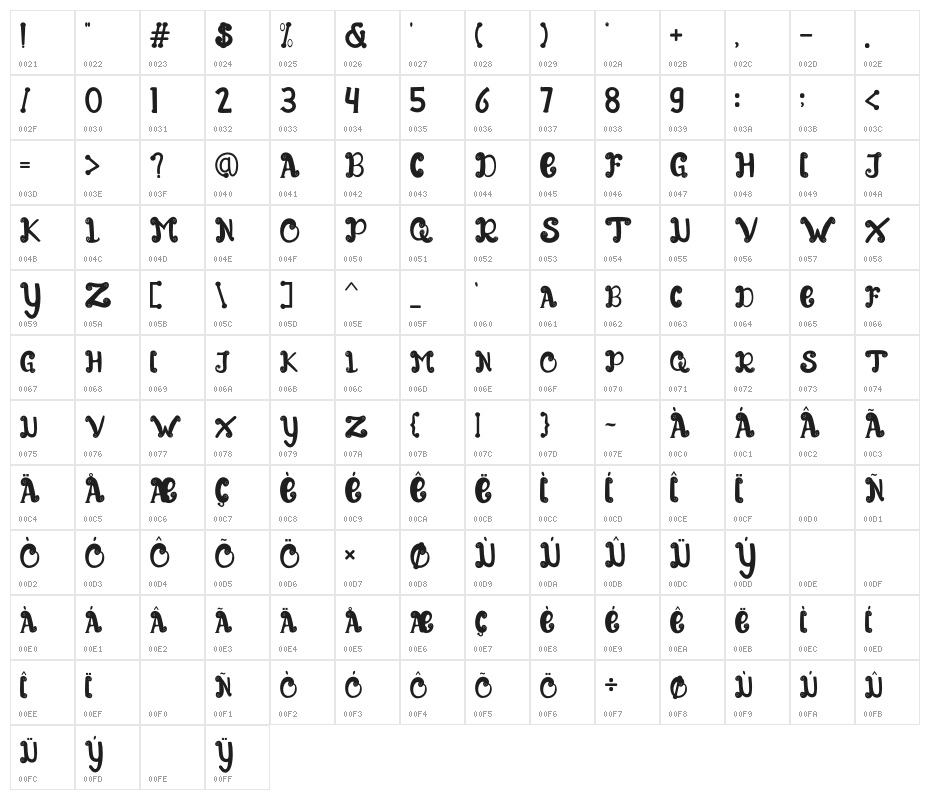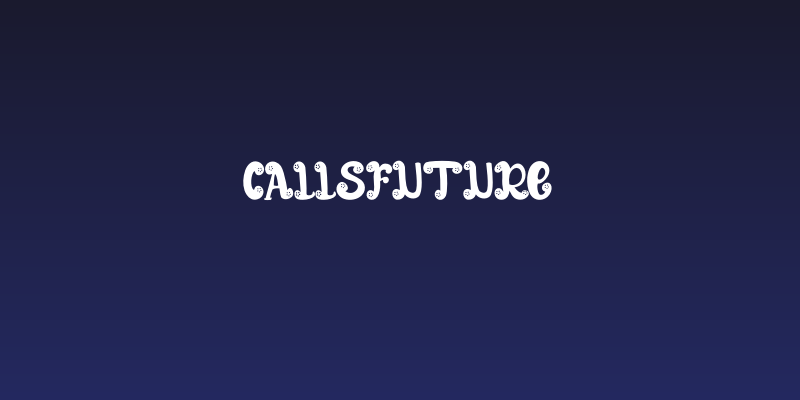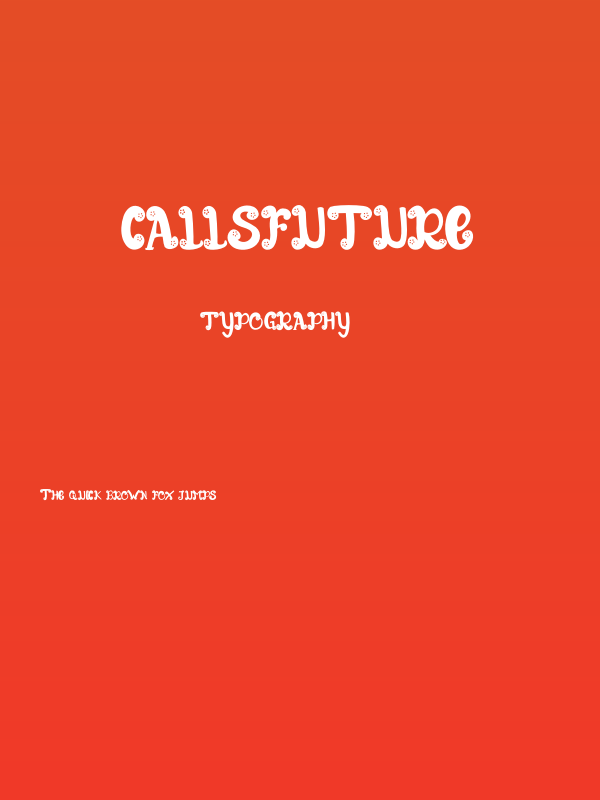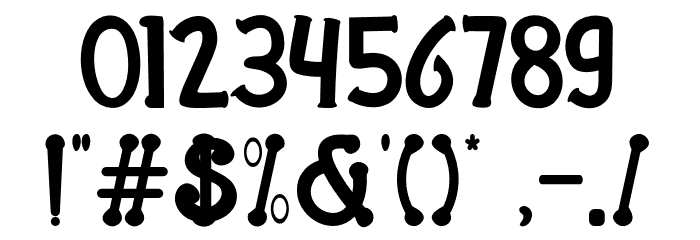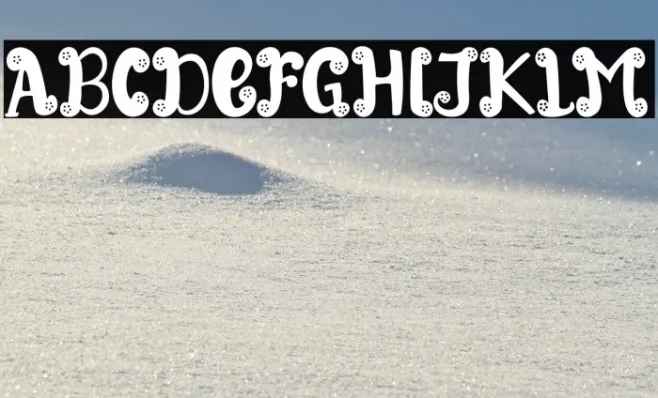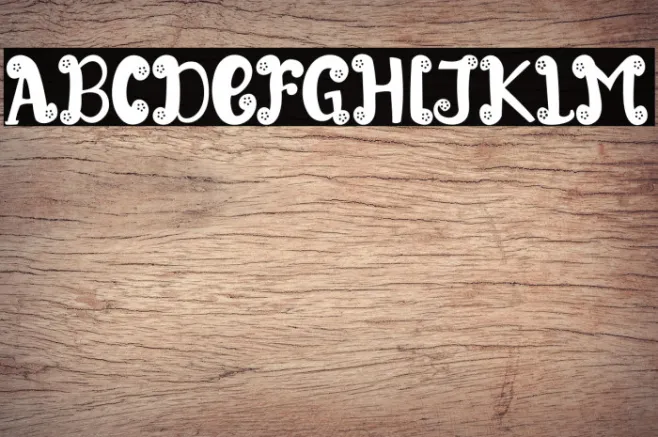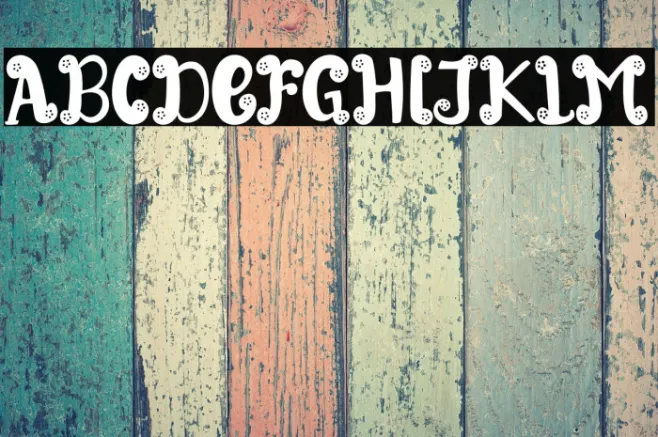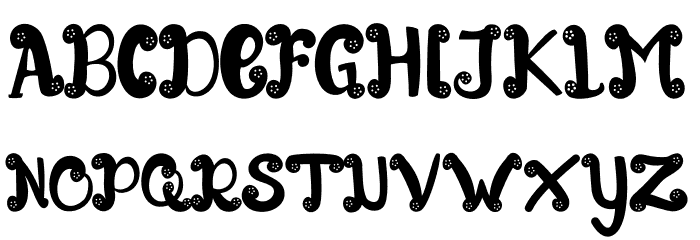
CALLSFUTURE Font
CALLSFUTURE Description
This font features a playful and whimsical design with bold, rounded characters. Each letter is adorned with small decorative dots, adding a unique and eye-catching element to the overall appearance. The characters are thick and have a consistent stroke width, contributing to a bold and impactful look. The font maintains a consistent baseline, with slightly exaggerated curves and loops that enhance its playful nature. The numbers and special characters follow the same decorative style, ensuring uniformity across all glyphs. This font is ideal for projects that require a fun and engaging aesthetic.